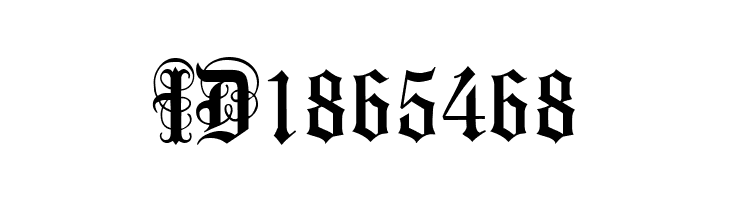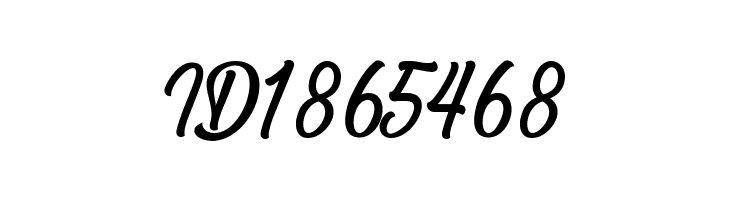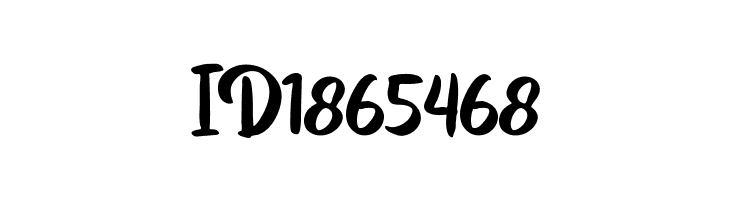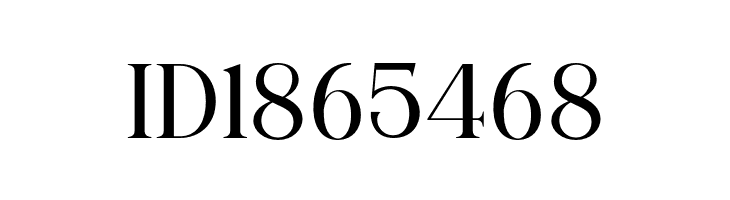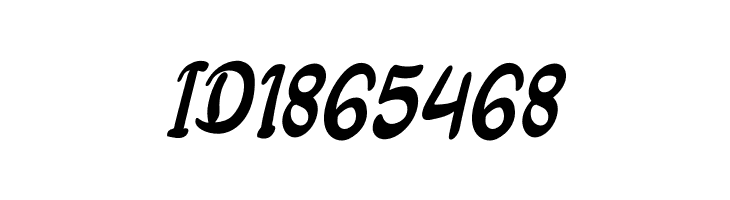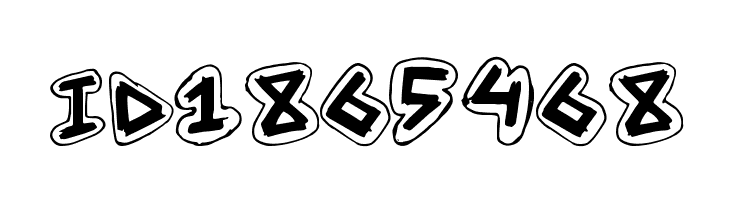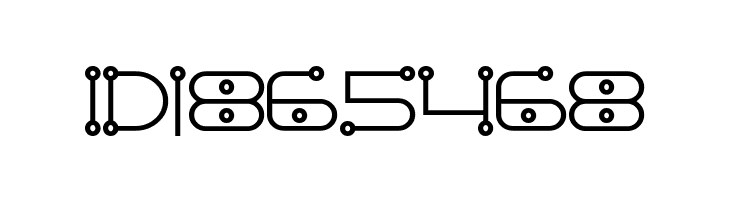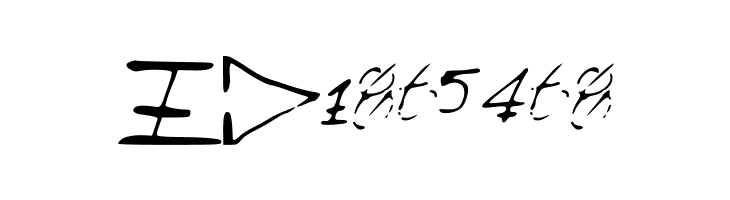
• ANGLE_
A bold, angular font with a futuristic and abstract style.
• Angler
A bold, cursive script font with a flowing, handwritten style.
• Angler Regular
A classic serif font with high contrast and elegant strokes.
• Angler-Regular
A classic serif font with elegant, sharp serifs and moderate contrast.
• Angles
A bold, flowing script font with dynamic and lively characters.
• AngleStroke
A bold, graffiti-style font with thick outlines and a playful vibe.
• Anglican Text UNZ1L
A decorative blackletter font with intricate, gothic-inspired details.
• AngliceDEMO
A bold, playful handwritten font with a dynamic and casual style.
• AngloCelestial
A futuristic, geometric font with circular nodes and connecting lines.
• AngloCelestial Bold
A futuristic, geometric font with circular nodes and connecting lines.